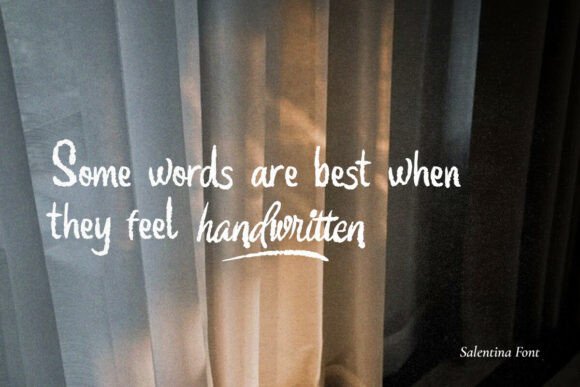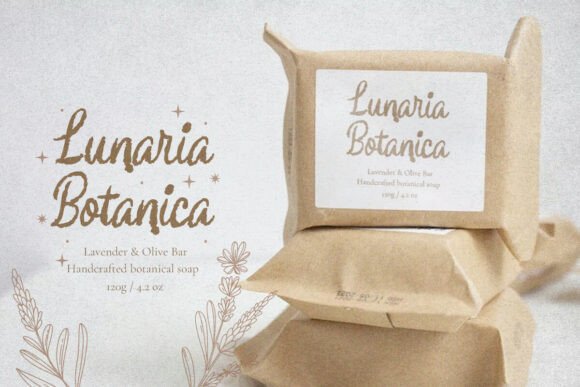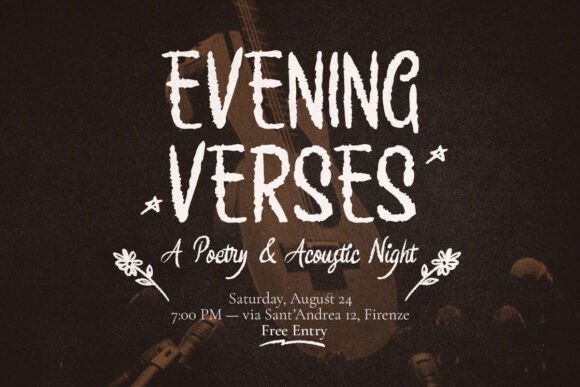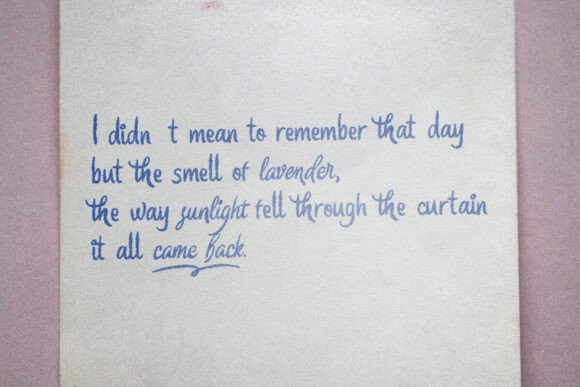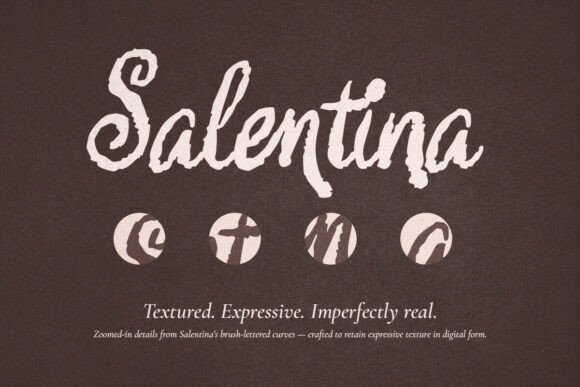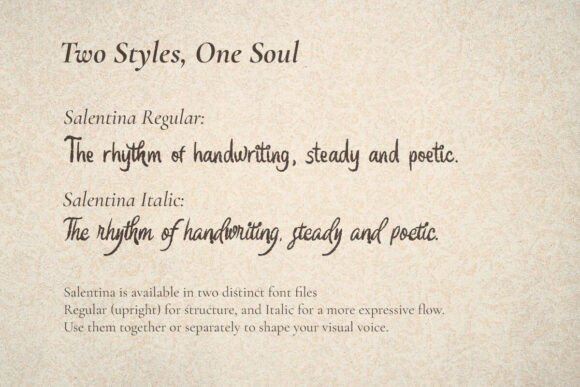
Introduction to Salentina Font
Salentina is a rustic script font with a warm, handcrafted feel.
It comes in two styles — Regular and Slanted — perfect for adding a poetic, natural touch to your designs Inspired by slow living and organic textures, Salentina is great for logos, packaging, quotes, journals, and branding.
Key Features of Salentina Font
Why Choose Salentina Font?